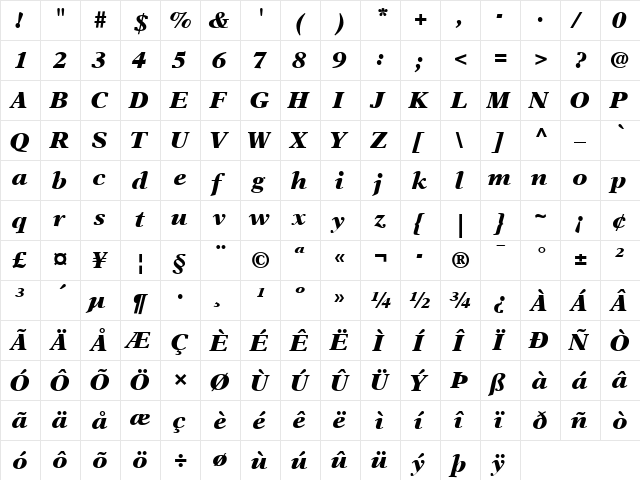
NewAster LT SemiBold Bold Italic
Design Context for NewAster LT SemiBold Typeface
NewAster LT SemiBold is a composed and adaptable typeface that performs quietly and consistently across a wide range of design contexts. The dynamic lean of this cut emphasises speed and emphasis in any layout. Its bold stroke weight gives it real presence on the page.
Pro Tip: Use NewAster LT SemiBold for emphasis, pull quotes, and subheadings where its slanted energy can add rhythm to the layout.